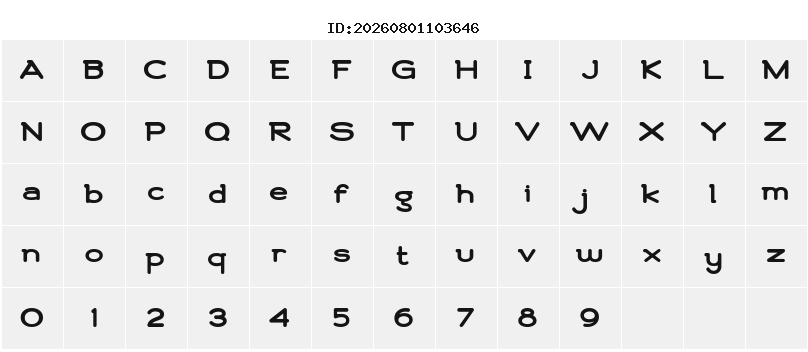
LHF Roper Preview
• Font Name: LHF Roper
• Full Font Name: LHF Roper
About LHF Roper.ttf
LHF Roper.ttf is a modern, elegant sans-serif font designed for ultimate readability and visual harmony. Perfect for branding, headlines, web design, and print materials.